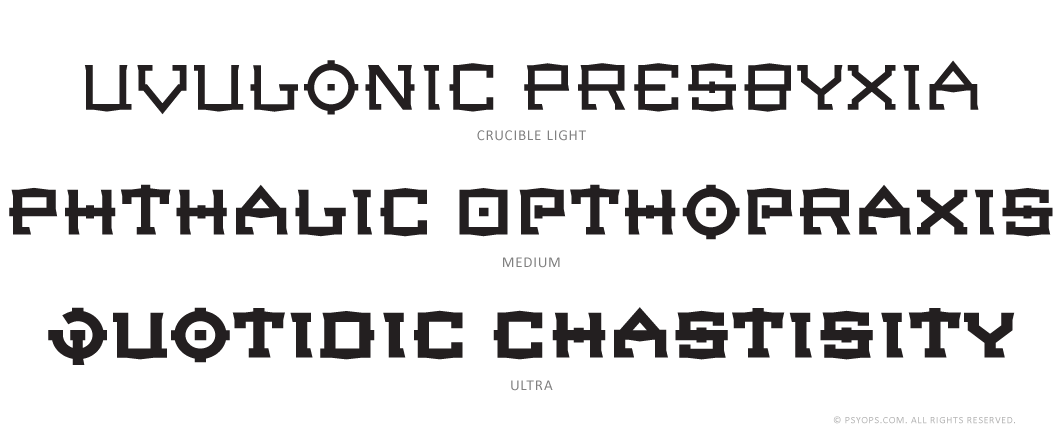
Crucible is a classic revival from the Second Wave of Phasic Constructivism. Nearly all the hallmarks of the obscure Manifesto are present: geometriculated letter chassis, protrusive lateral escapements, and encyphered stanchions based on the Venerated Slope. The only element lacking are the transpersive sines, but they are more than compensated for by the emplacement of fourth-order bulkheads.